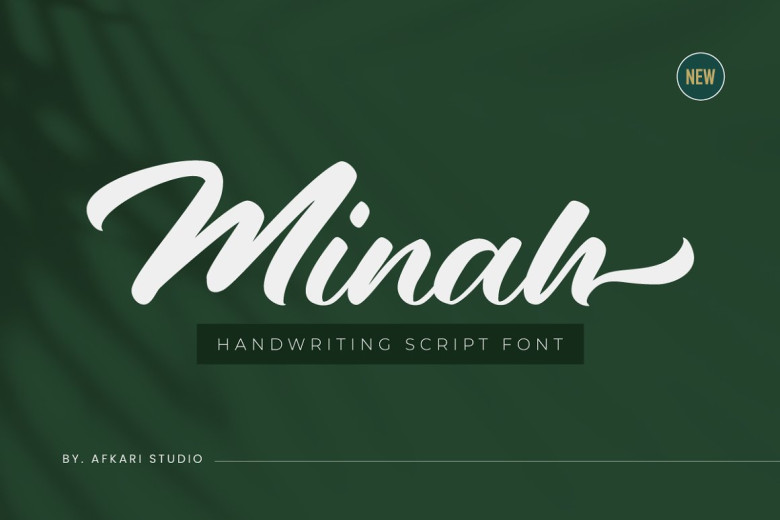
Minah Font
Minah Handwriting Script is a modern font, made to seem as natural as can be, and it is ideally positioned to serve as a font for brand logos, invitations, titles of magazines and books, business cards, greeting cards, wedding cards, make-up packaging or fashion designers’ labels–to be applied wherever that sort of stylish but simple design fits in.
The Majestic Handwriting Script font was designed with simplicity in mind. It has many Open Type features such as Stylistic Sets, Stylistic Alternates, Contextual Alternate characters and ligatures that make this modern script perfect for use in any designing program offering Unicode support.
This modern script font also contains begin, middle and ending swashes to use it more conveniently, it will help to improve your design greatly. Only base on your creativity!
Minah Handwritten Script Font